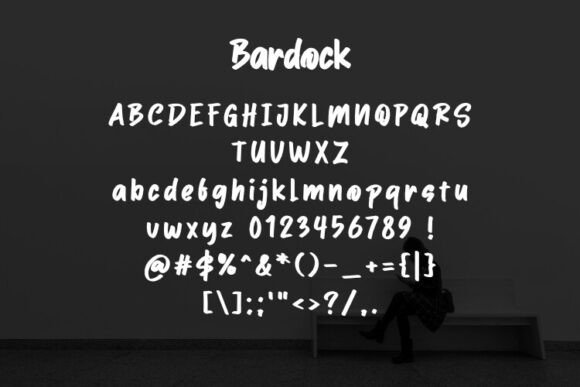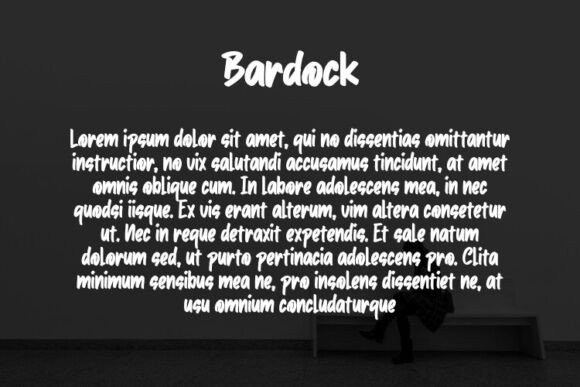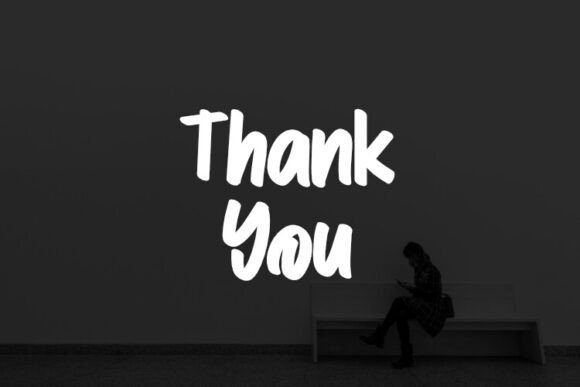
Unleash Your Creativity with Bardock Font: The Ultimate Design Companion
In the world of design, a font is more than just a set of characters – it’s a tool that can elevate your creative vision and bring your ideas to life. Introducing Bardock Font, a game-changing typography that is not just a font, but a creative tool designed to embolden your design adventures. Whether you’re a seasoned designer or a crafty enthusiast, Bardock Font is the perfect companion for your artistic journey.
A Canvas for Your Creativity
Bardock Font is delivered in an easy-to-use OTF file, making it simple to install and get started. Once you’ve added it to your design arsenal, you’ll discover a world of creative possibilities. From conceptualizing clothing designs to crafting tees, Bardock Font provides a versatile canvas for all your design needs. Its clean lines, elegant curves, and bold character make it perfect for a wide range of applications, from logos and branding to posters, flyers, and more.
Where Creativity Knows No Bounds
The Bardock Font is more than just a design tool – it’s an invitation to explore your creativity and push the boundaries of what’s possible. With this font, you can experiment with different styles, combine it with other design elements, and bring your unique vision to life. Whether you’re a professional designer or a DIY enthusiast, Bardock Font provides the perfect platform to express yourself and showcase your artistic flair.
Why Designers and Crafters Love Bardock Font
So, what makes Bardock Font so special? Here are just a few reasons why designers and crafters are falling in love with this amazing typography:
- Elegant design: Clean lines, elegant curves, and a bold character make Bardock Font perfect for a wide range of applications.
- Endless creative possibilities: From logos and branding to posters, flyers, and more, Bardock Font provides a versatile canvas for all your design needs.
In conclusion, Bardock Font is not just a font – it’s a creative tool designed to embolden your design adventures. With its universal compatibility, elegant design, and endless creative possibilities, Bardock Font is the perfect companion for designers and crafters alike. Whether you’re conceptualizing clothing designs or crafting tees, Bardock Font provides a versatile canvas for all your design needs. So why wait? Immerse yourself in the artistic allure of Bardock Font and discover a world of creative possibilities.